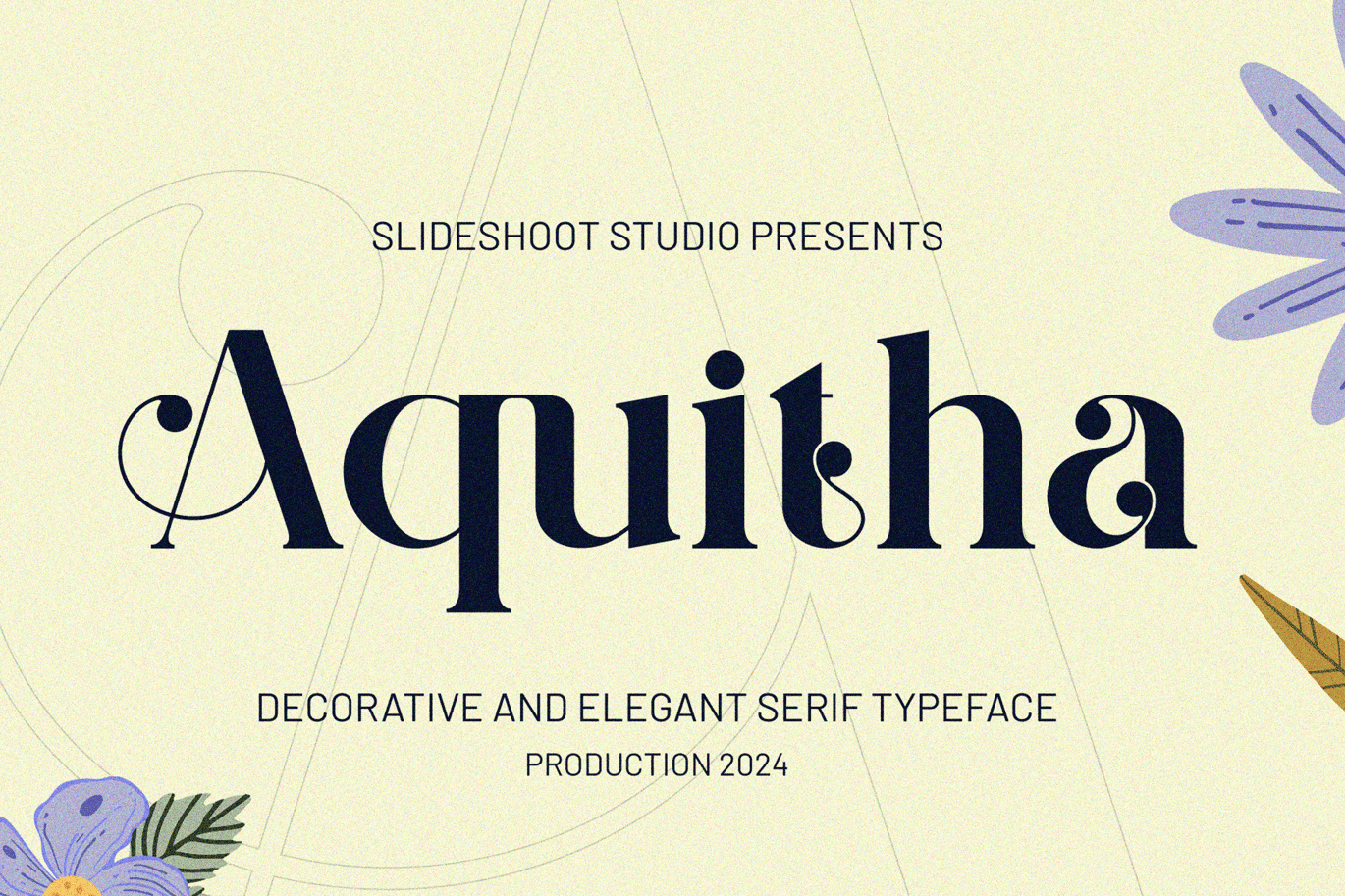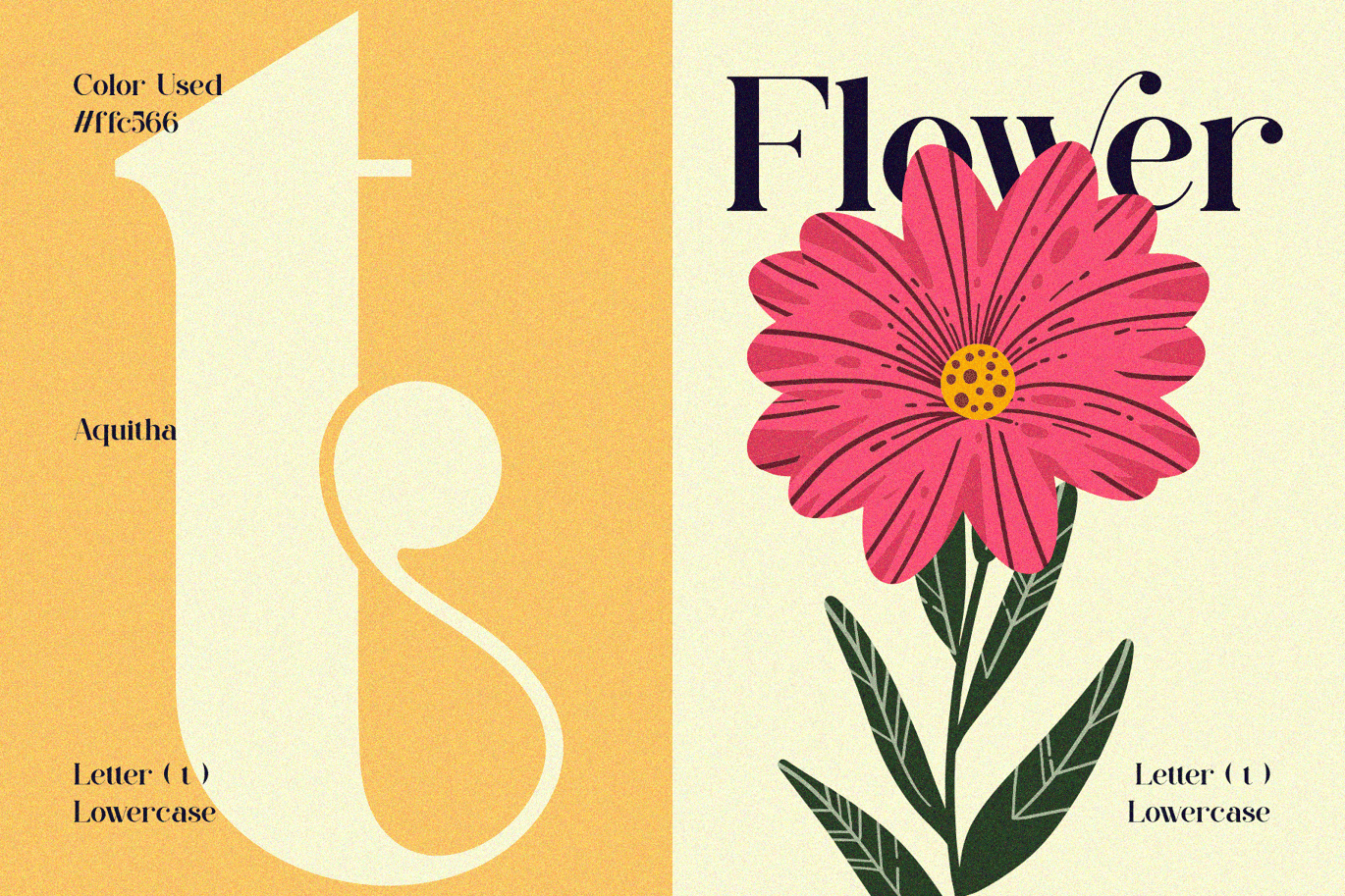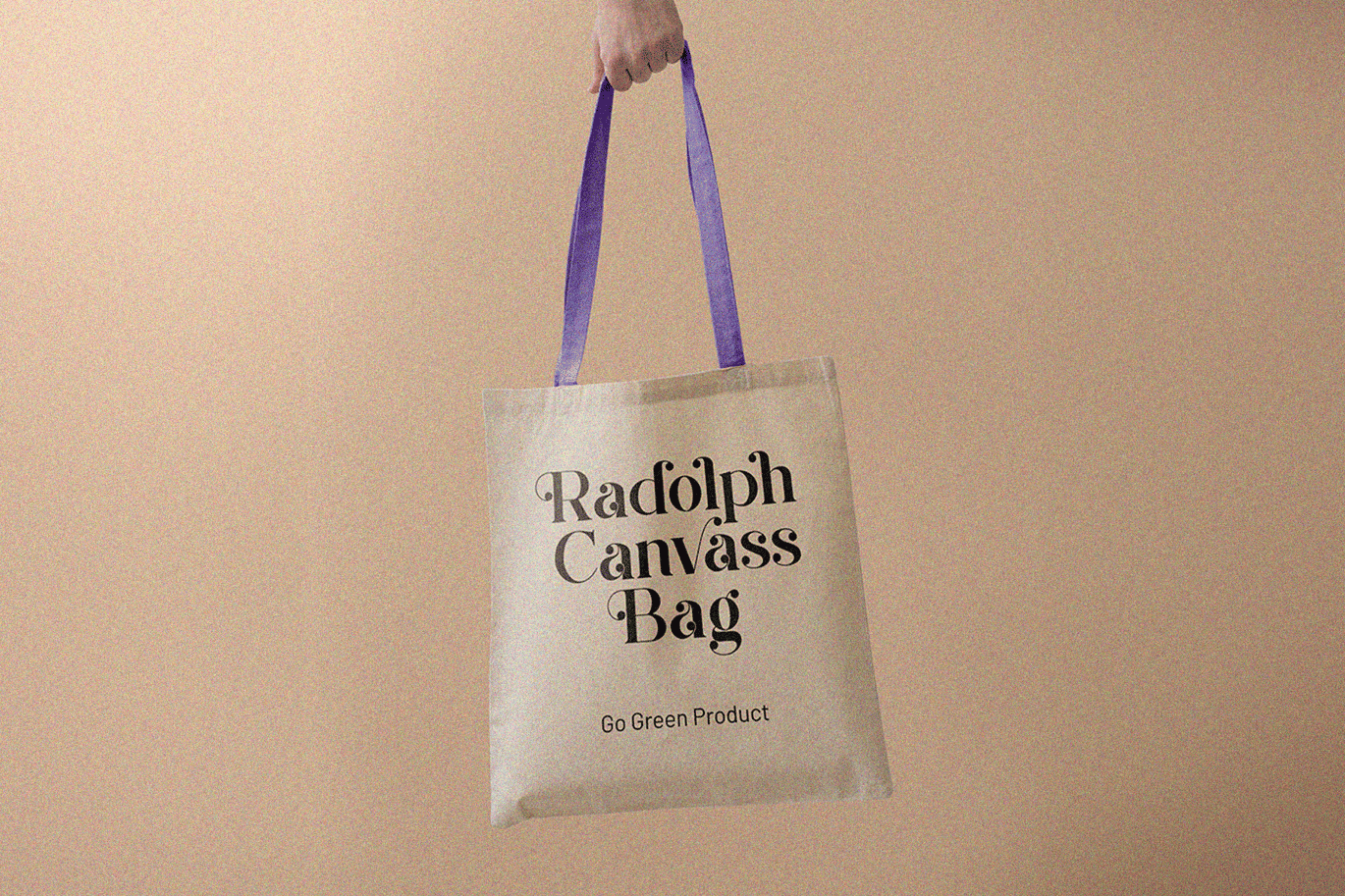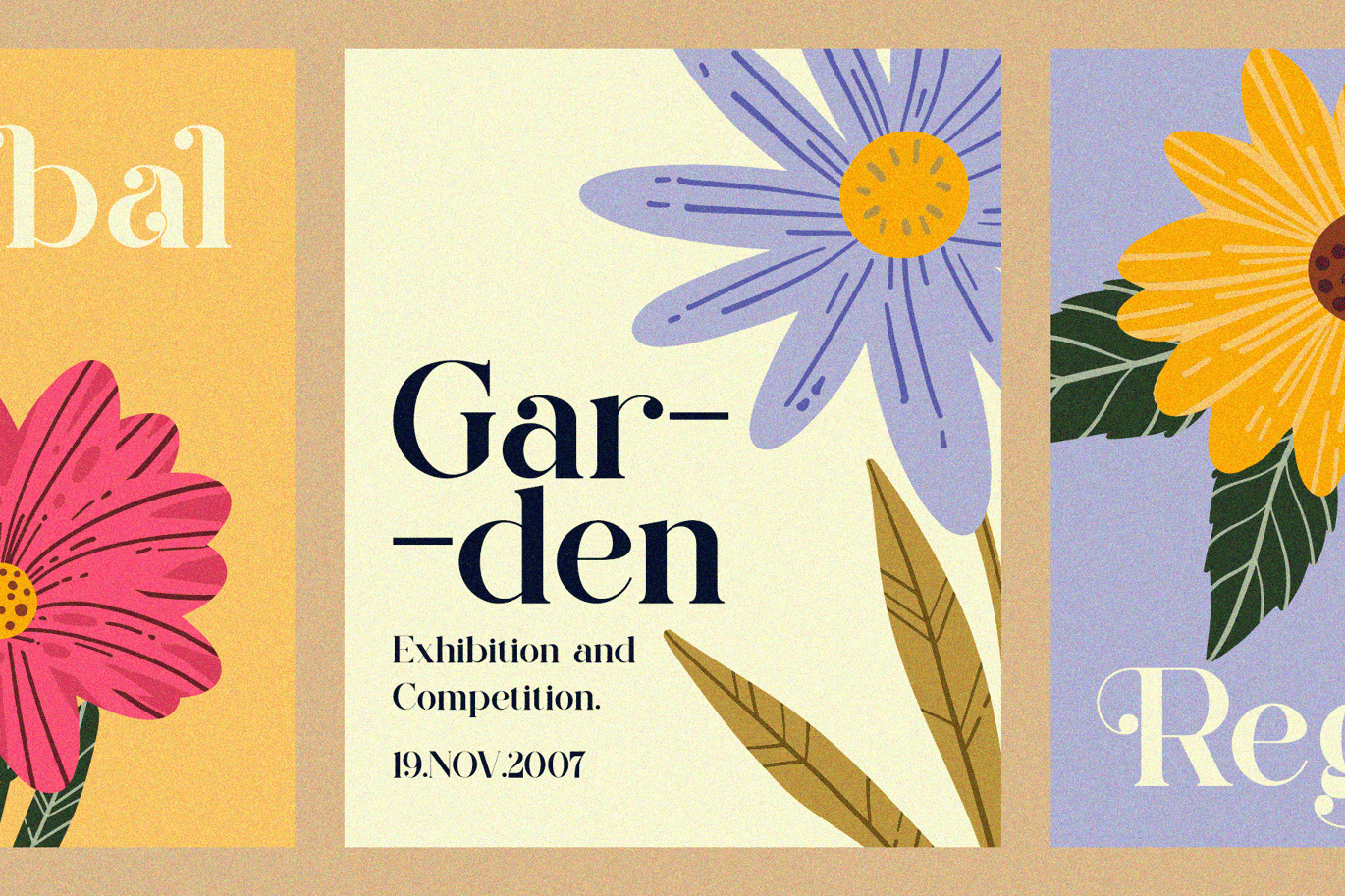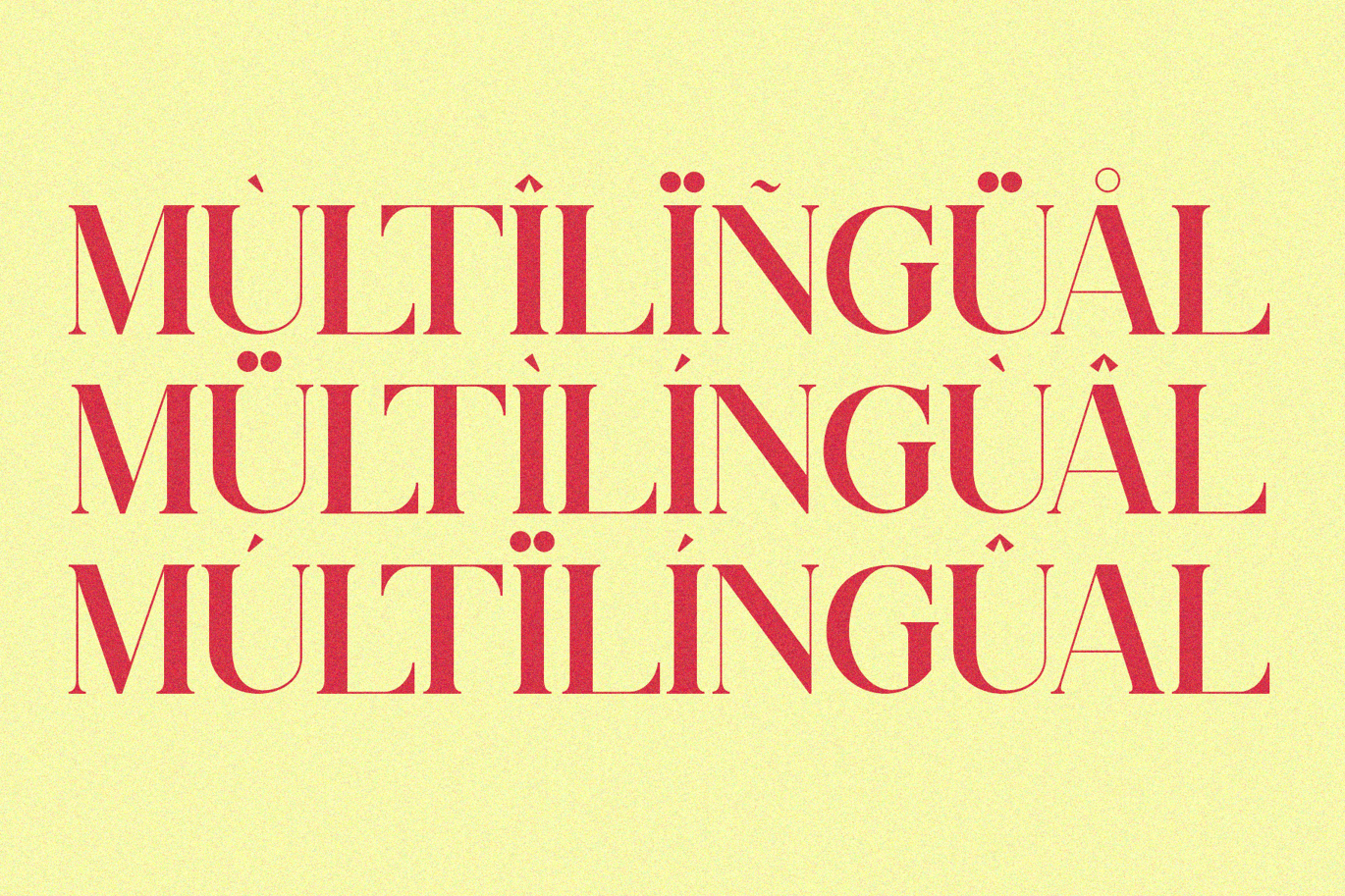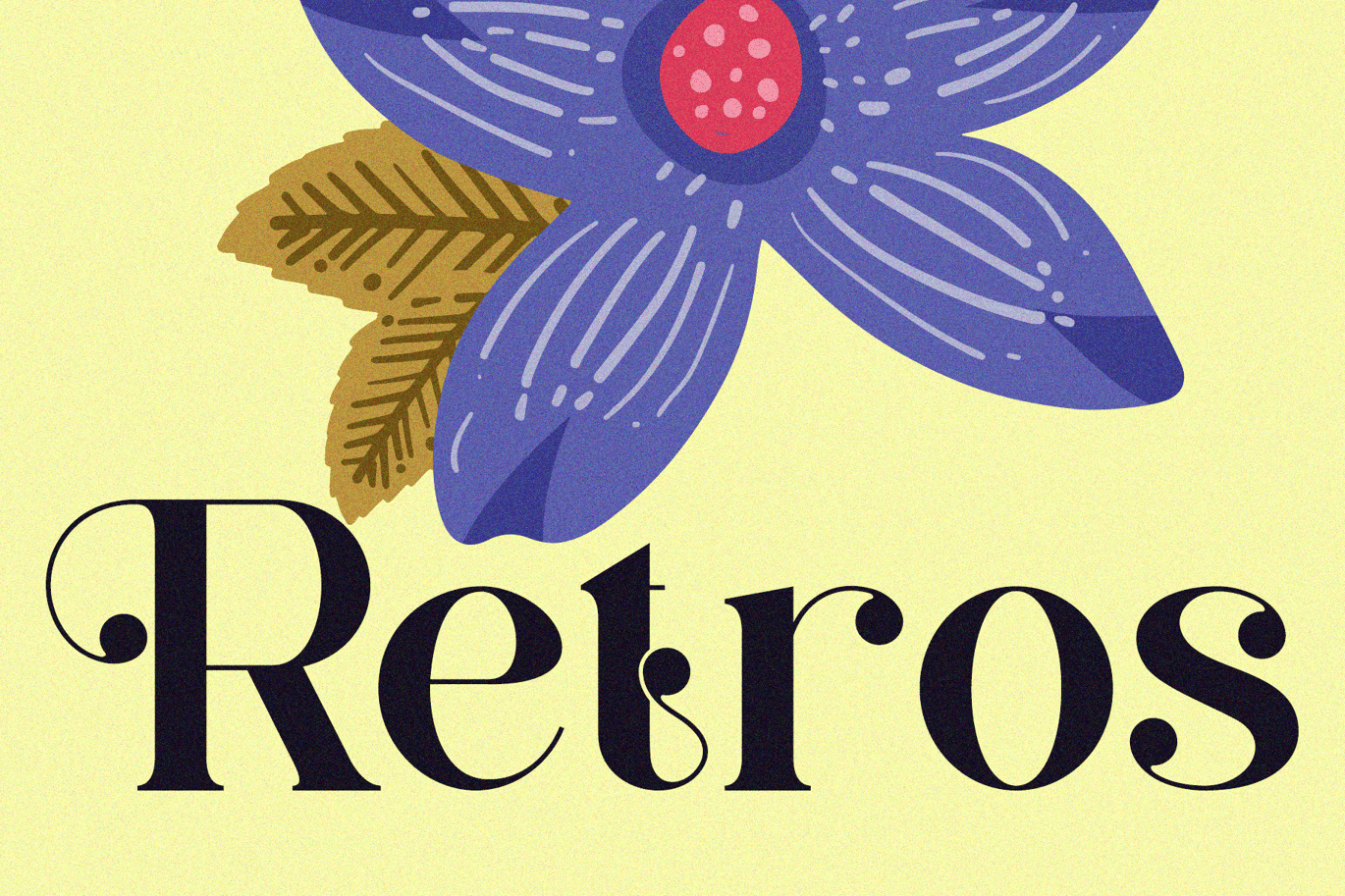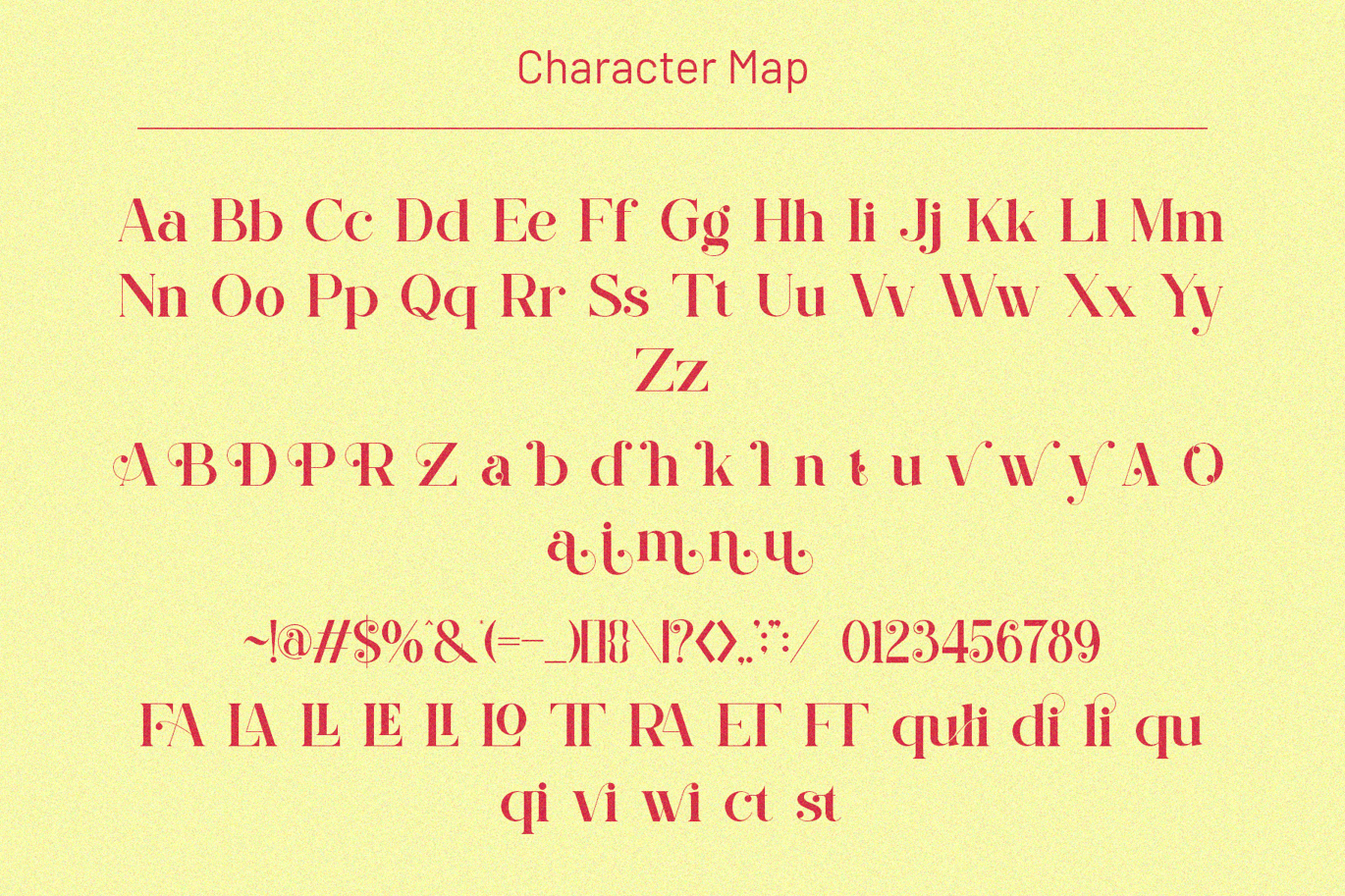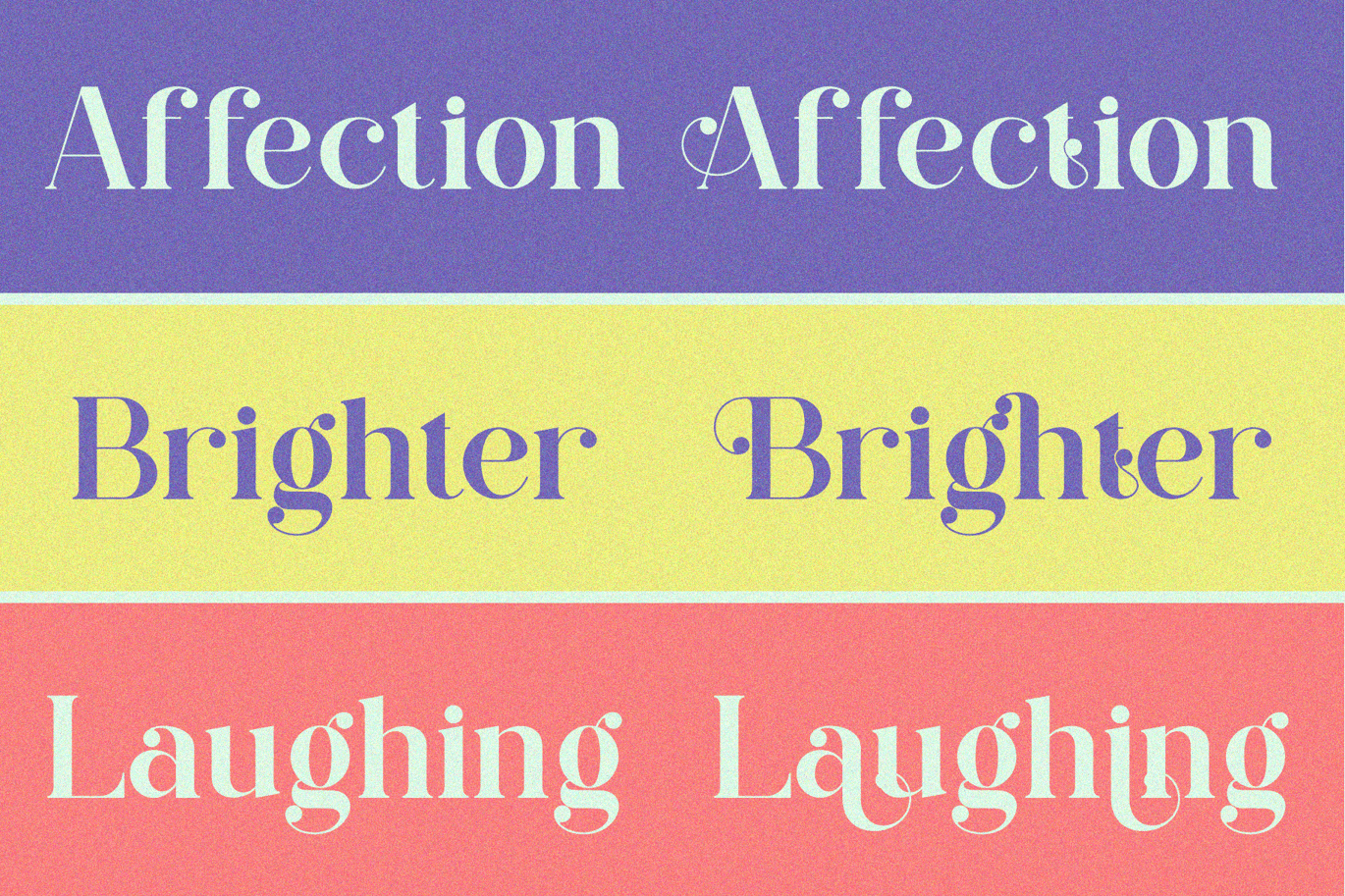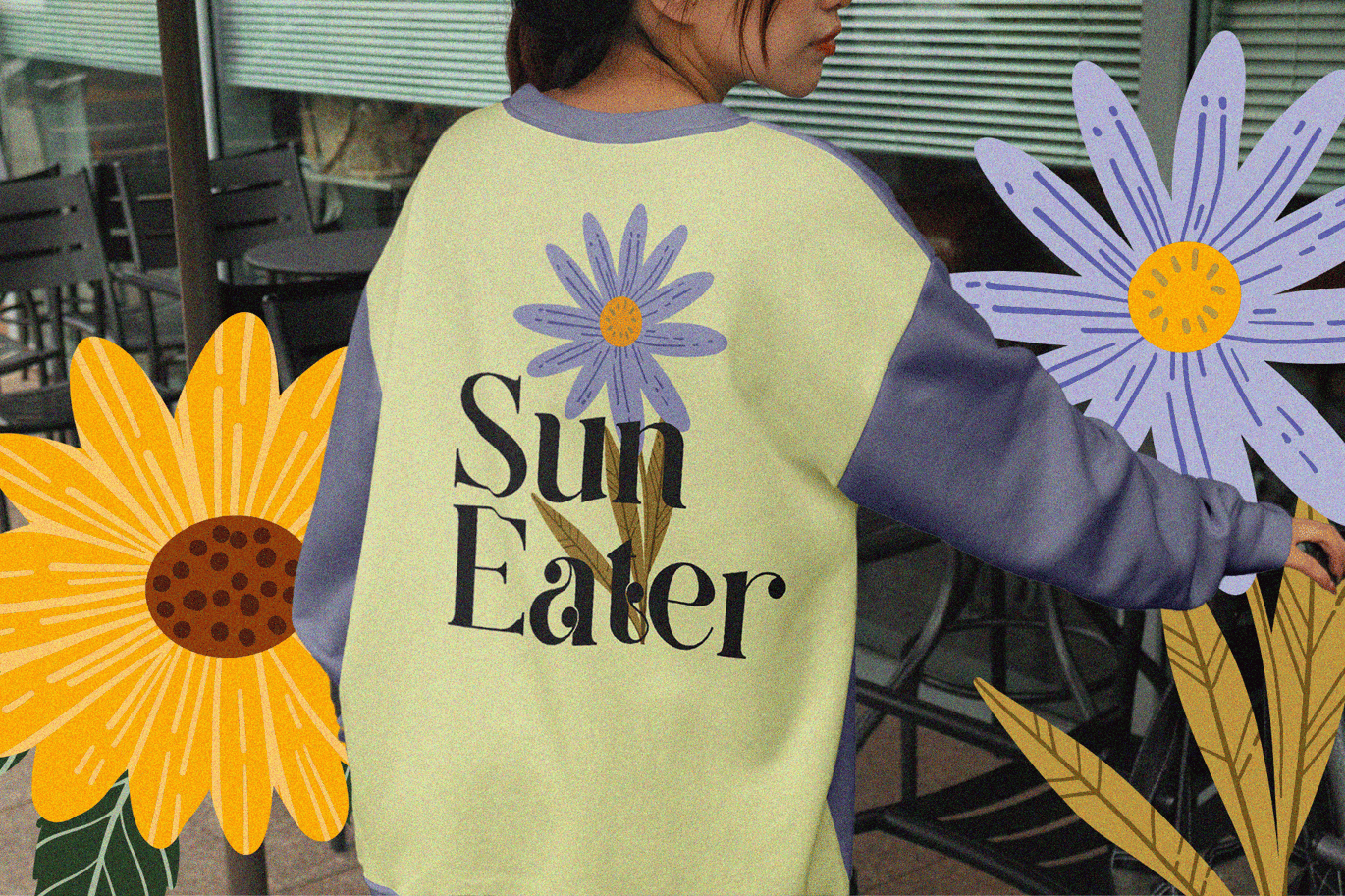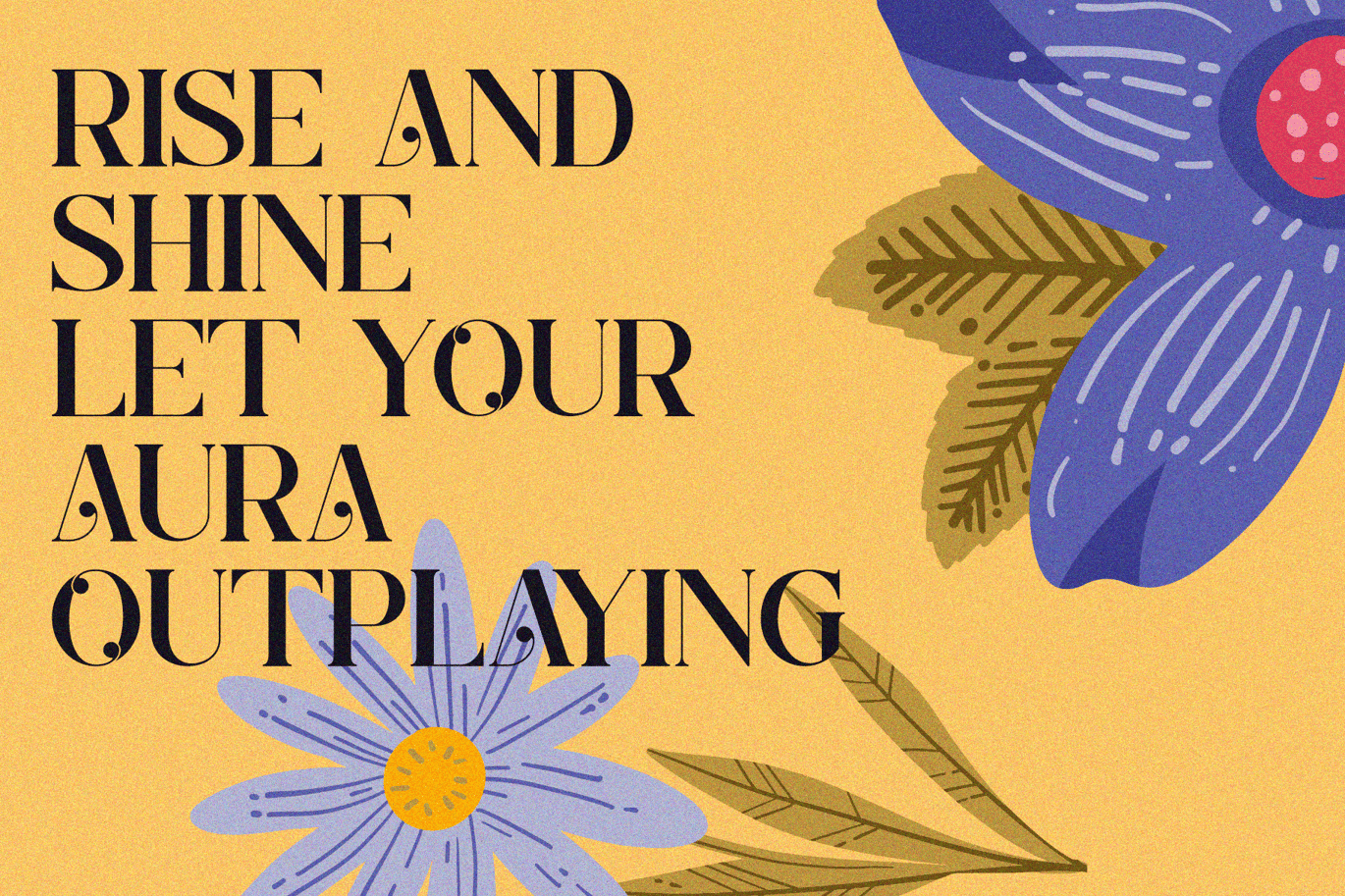
Aquitha || Decorative and Elegant Serif Font
Aquitha Serif is a modern and classy Serif font has a beautiful character. This font is suitable for invitation card designs, cool logos, movie titles, movie names, business cards, book titles, brand names, and various other designs. Aquitha Serif is a smooth serif font that exudes sophistication and the moment. Its stylish alterations and ligatures make this font a perfect partner for any project.
- Uppercase and lowercase
- Numbering and Punctuation